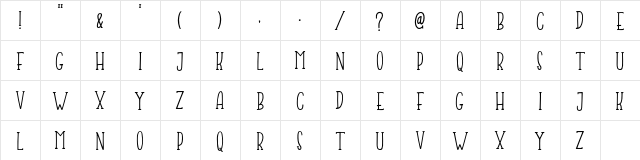
Jumping Frog Demo Regular
| Foundry | Runsell Studio |
| Designer | Edi Gunawan |
Design Context for Jumping Frog Demo Typeface
Jumping Frog Demo takes a measured approach to typography — its balanced proportions and neutral character make it a reliable workhorse for both digital and print work.